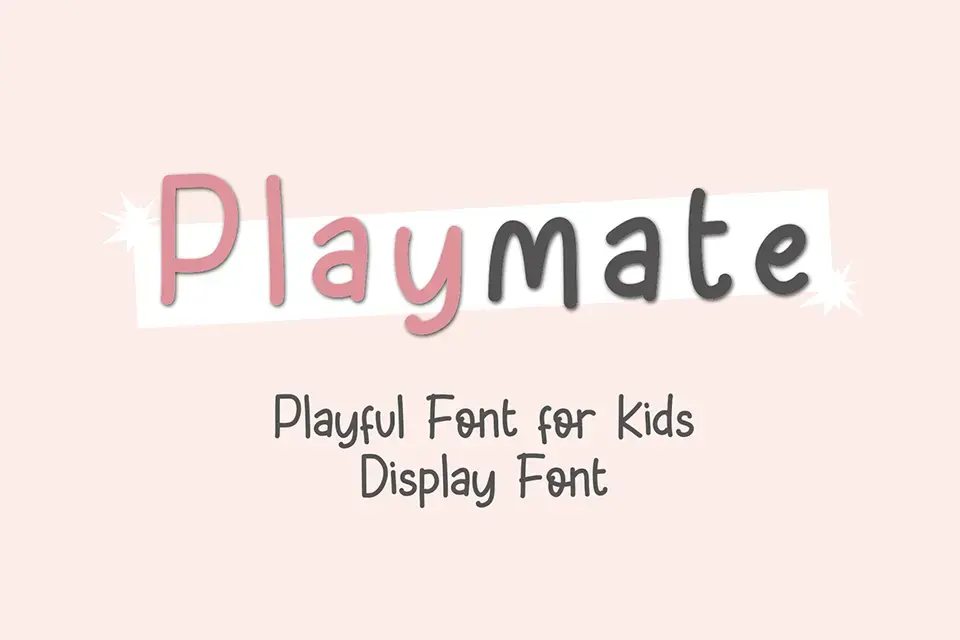
Playmate Font
Playmate is a charming and playful handwritten font designed by Letterafa Studio. Its smooth, rounded strokes and bouncy baseline create a cheerful atmosphere, making it ideal for children’s books, greeting cards, and party invitations. This casual script offers a friendly aesthetic that adds a touch of warmth and creativity to any design project, ensuring your text stands out with joy.